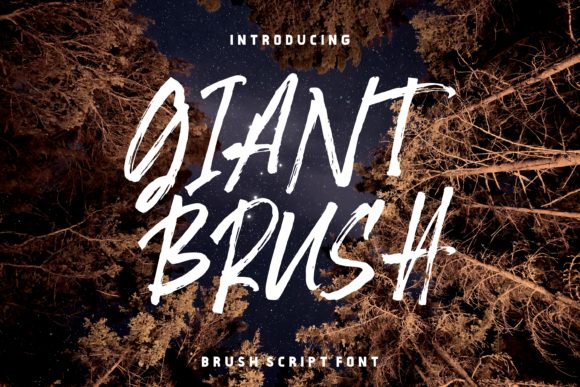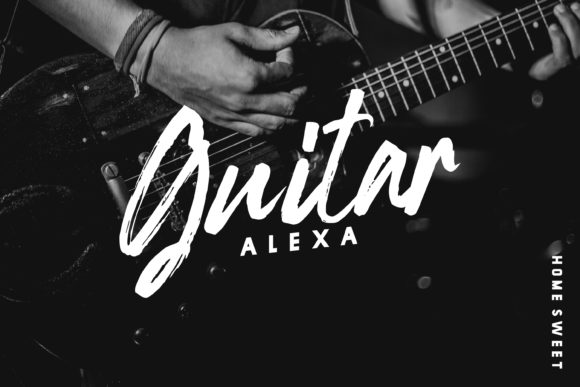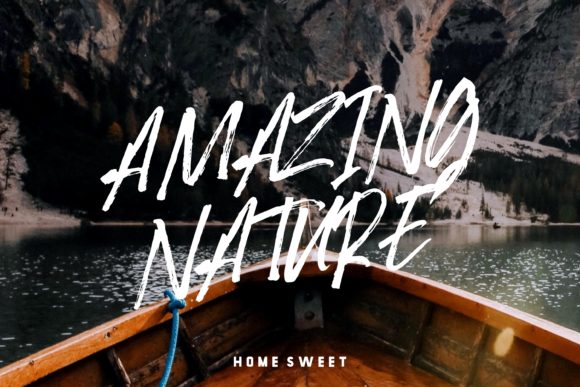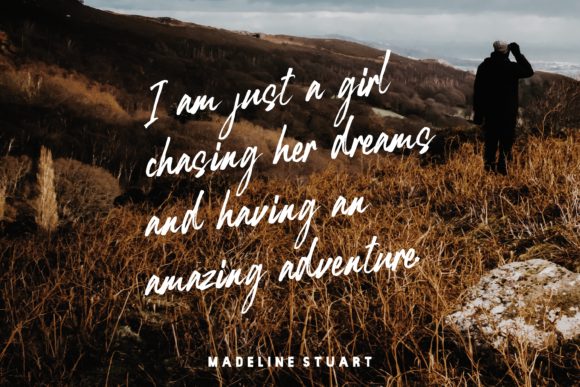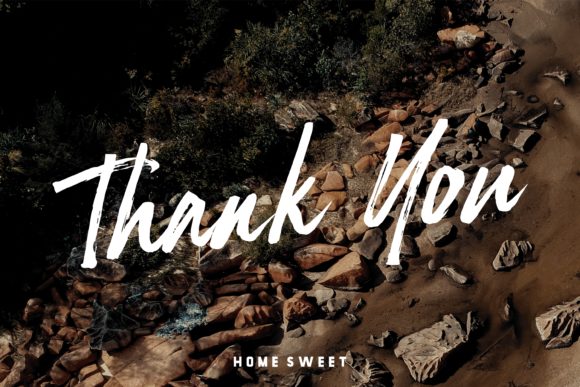
HomeScript FontsGiant Brush Font Script Fonts Giant Brush Font FacebookXPinterestWhatsApp Giant Brush Font Poster 2 Giant Brush Font Poster 3 Giant Brush Font Poster 4 Giant Brush Font Poster 5 About Giant Brush Font Giant Brush is an amazing and powerful brush handwritten font. It will add a bold feel to any design project! DOWNLOAD ON CREATIVE FABRICAThis font is sold and delivered by Creative Fabrica. Font Canyon may earn a commission if you buy through this link. People also explored Chery Bomber Font Tribalmono Font Signed Font Applejack Font Baligle Font Dear Green Font Ristea Catfoot Font Celestie Font Heisen Font 365 0 TagsGiant Brush Font Previous articleBaltimore FontNext articleNaybrushy Font LEAVE A REPLY Cancel reply Comment: Please enter your comment! Name:* Please enter your name here Email:* You have entered an incorrect email address! Please enter your email address here Website: Save my name, email, and website in this browser for the next time I comment. Personal Use Free Carrolina Personal Use Free Read more about this font Gdynia Personal Use Free Read more about this font Stone Garden Personal Use Free Read more about this font Nugo Sans Personal Use Free Read more about this font BLOG Exploring Font Trends Shaping Communication in the Digital Era Fonts, like all design elements, are subject to trends. They play a crucial role in communicating a brand's personality,... 5 Fonts That Will Dominate Design Trends in 2026 Modern Sans-Serif Fonts That Brands Love in 2025 Top 7 Google Fonts Alternatives for Faster and Privacy-Friendly Web Design (2025)